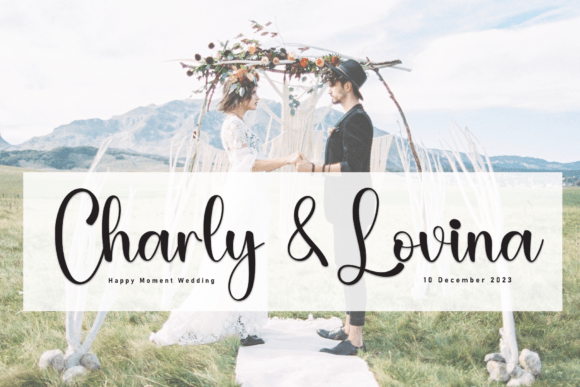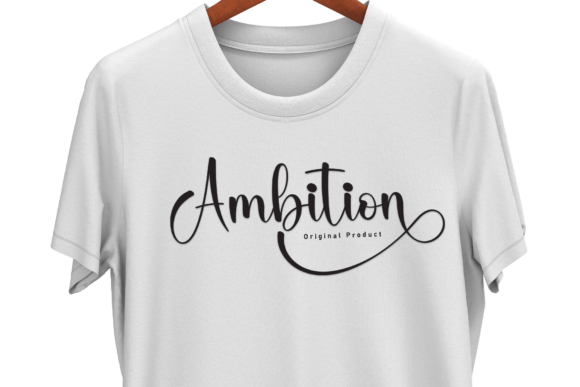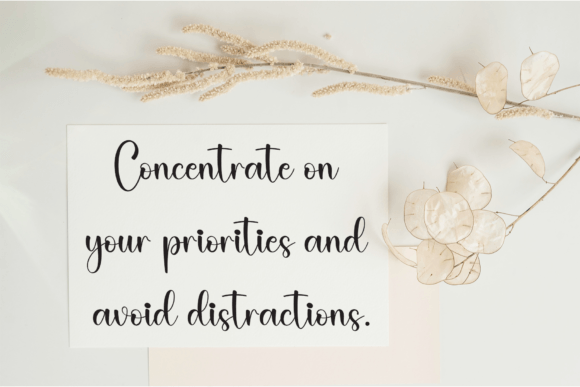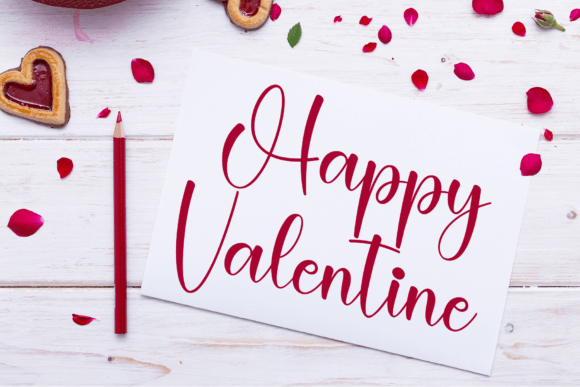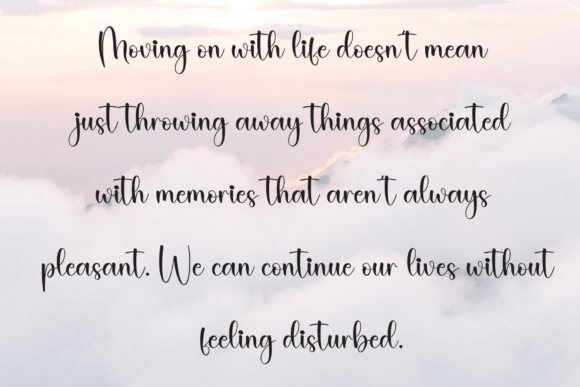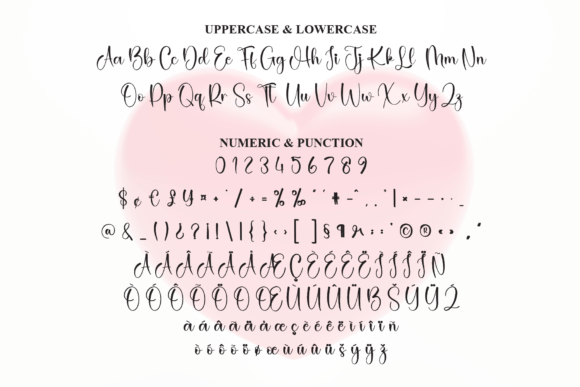
Discover the Charm of Hearth Font: Elevate Your Designs with Elegance
Are you a designer or crafter looking for a font that exudes charm and elegance? Look no further than Hearth Font. This beautiful handwritten font is perfect for adding a touch of sophistication to your designs, making it ideal for wedding invitations, thank you cards, quotes, greeting cards, logos, business cards, and more.
What is Hearth Font?
Hearth Font is a stunning handwritten font that boasts a unique blend of charm and elegance. Its delicate lines and curves make it perfect for designs that require a personal touch. Whether you’re creating wedding stationery, social media graphics, or branding materials, Hearth Font is sure to impress.
Characteristics of Hearth Font
So, what makes Hearth Font so special? Here are just a few of its key characteristics:
- Handwritten elegance: Hearth Font has a beautiful, handwritten feel that’s perfect for designs that require a personal touch.
- Delicate lines and curves: The font’s delicate lines and curves make it perfect for creating elegant and sophisticated designs.
- Versatile: Hearth Font is versatile and can be used for a wide range of designs, from wedding invitations to business cards.
- Easy to read: Despite its elegant feel, Hearth Font is easy to read, making it perfect for designs that require a clear and concise message.
Uses for Hearth Font
Hearth Font is perfect for a wide range of designs, including:
- Wedding invitations: Add a touch of elegance to your wedding stationery with Hearth Font.
- Thank you cards: Show your appreciation with beautifully designed thank you cards featuring Hearth Font.
- Quotes and posters: Add a touch of sophistication to your quotes and posters with Hearth Font.
- Greeting cards: Create beautiful greeting cards for special occasions with Hearth Font.
- Logos and branding: Use Hearth Font to create a unique and elegant logo for your business.
- Business cards: Stand out from the crowd with beautifully designed business cards featuring Hearth Font.
Tips for Using Hearth Font
Here are a few tips for getting the most out of Hearth Font:
- Pair with a bold font: Pair Hearth Font with a bold font to create a striking contrast.
- Use a simple background: Keep your background simple to let Hearth Font take center stage.
- Experiment with colors: Try out different colors to find the perfect match for your design.
- Pay attention to spacing: Make sure to leave enough space between lines to create a clean and elegant design.
In conclusion, Hearth Font is a beautiful and elegant handwritten font that’s perfect for designers and crafters looking to add a touch of sophistication to their designs. Its delicate lines and curves make it perfect for a wide range of designs, from wedding invitations to business cards. With its versatility, ease of use, and elegant feel, Hearth Font is sure to become a favorite in your design arsenal.
Get Creative with Hearth Font